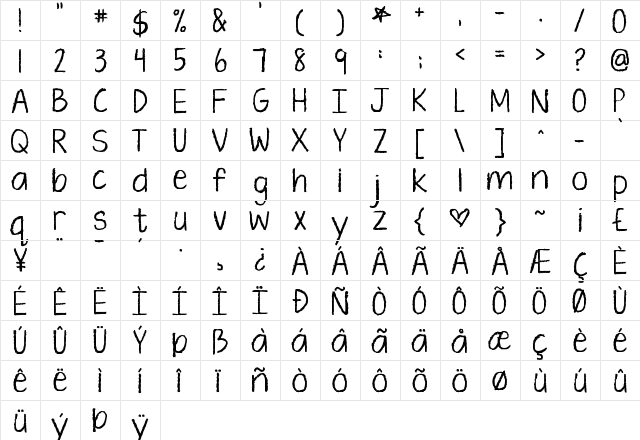
KG Ten Thousand Reasons Alt Regular
| Foundry | Kimberly Geswein |
| Designer | Kimberly Geswein |
Design Context for KG Ten Thousand Reasons Alt Typeface
KG Ten Thousand Reasons Alt is a composed and adaptable typeface that performs quietly and consistently across a wide range of design contexts.